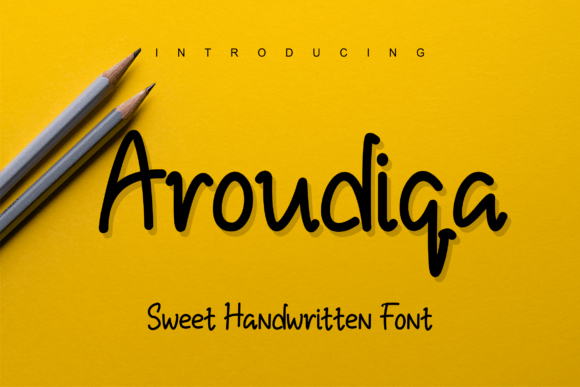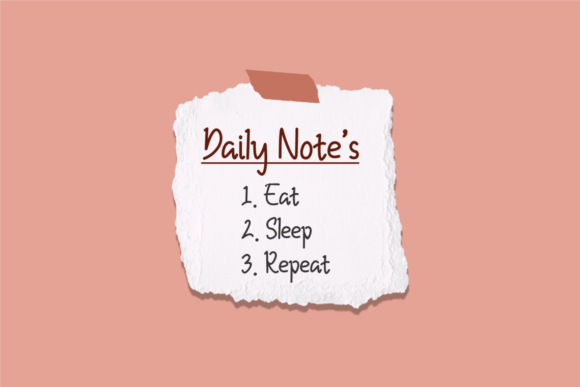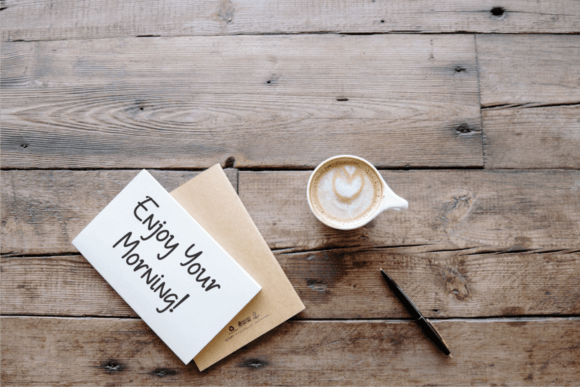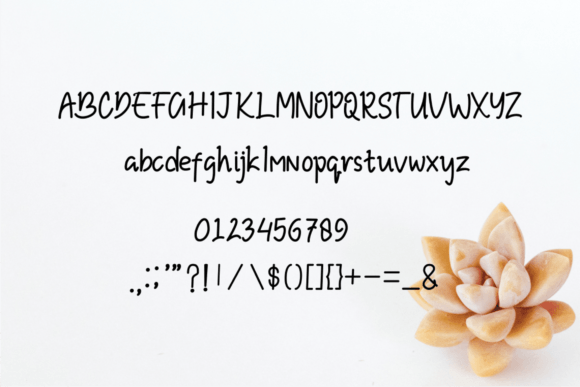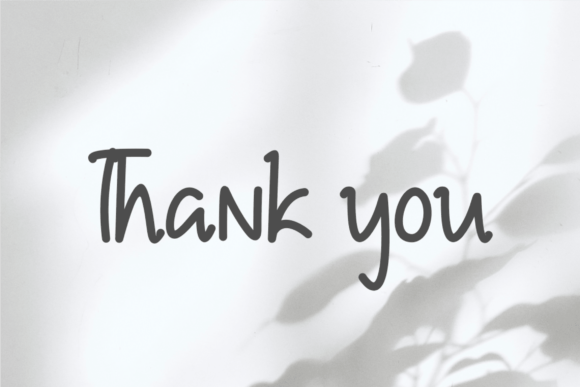
Aroudiqa Font
About Aroudiqa Font
Introducing “Aroudiqa” – Your Bold and Authentic Handwritten Font for Striking Branding Projects!
“Aroudiqa” is not just a font; it’s a bold and authentic handwritten typeface designed to bring impact and authenticity to your branding projects. Whether you’re using it for logos, t-shirt printing, exports, or any other branding endeavor, “Aroudiqa” is the perfect choice to make your designs stand out and leave a powerful impression in a wide range of contexts.
With “Aroudiqa,” you get a font that exudes boldness and authenticity, making it ideal for various branding applications. Its handwritten style adds a personal and striking touch to your text, ensuring that your brand identity is both memorable and impactful.
Imagine using “Aroudiqa” to create a bold and unforgettable logo, design eye-catching t-shirts that reflect your brand’s essence, or export your products with a branding that commands attention. This font’s bold and authentic design will make your branding projects truly outstanding.
Whether you’re an experienced branding professional or someone looking to make a powerful statement with your designs, “Aroudiqa” is your go-to font for infusing your branding with boldness and authenticity.